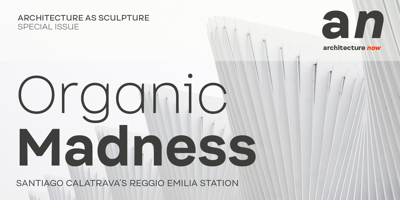
AB Appare Font Free Download
AB Appare Font Free Download is a modern and sleek sans-serif typeface designed with precision and elegance. With its clean, geometric structure and contemporary feel, this font is perfect for branding, logos, website design, advertising, and packaging projects that require a minimalist and stylish aesthetic.
AB Appare works seamlessly for both large headings and body text, providing versatility across different design mediums. It integrates effortlessly with tools like Adobe Illustrator, Photoshop, Canva, and Figma, allowing for easy adaptation across both digital and print platforms.